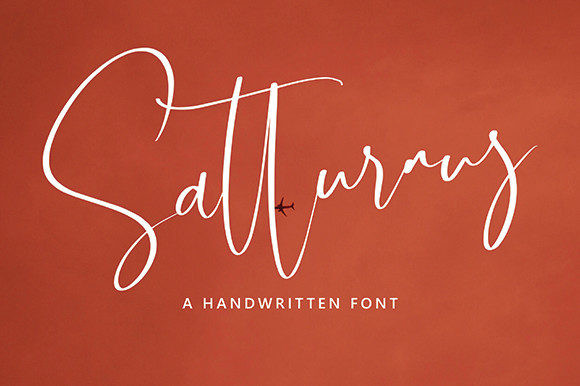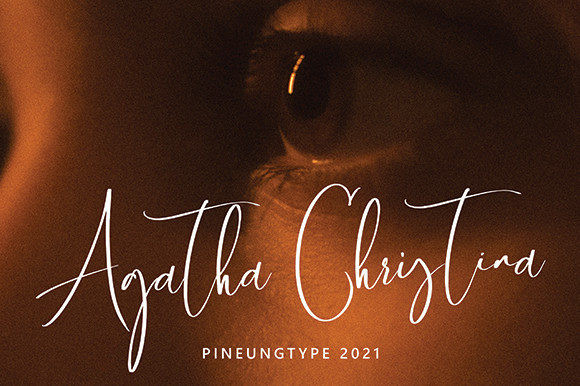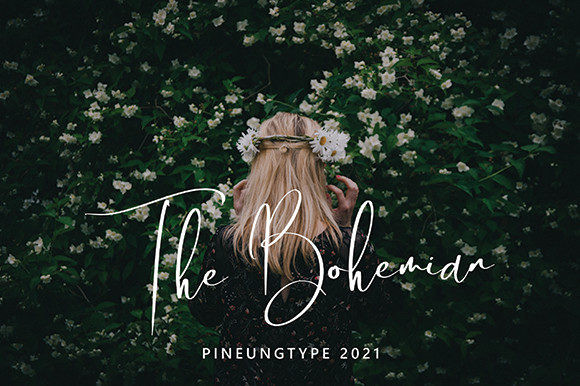
Satturnus Font
Satturnus is a fashionable and incredibly elegant script font. It looks stunning on wedding invitations, thank you cards, quotes, greeting cards, logos, business cards and every other design which needs a customized touch.